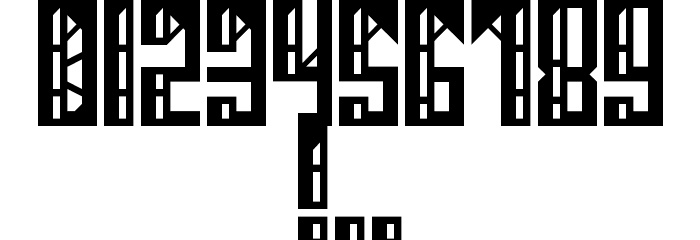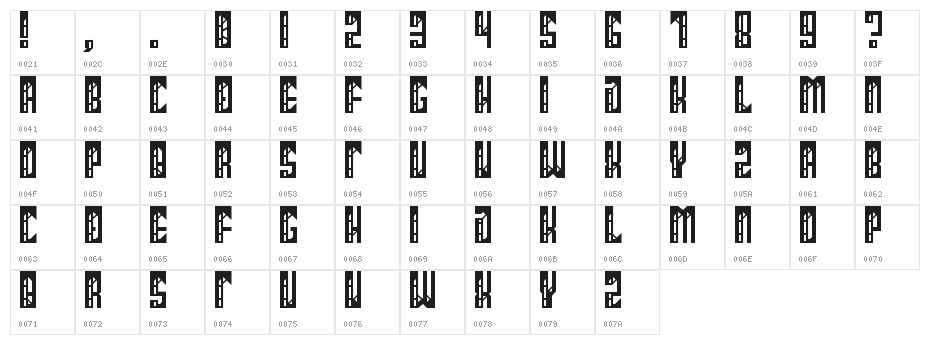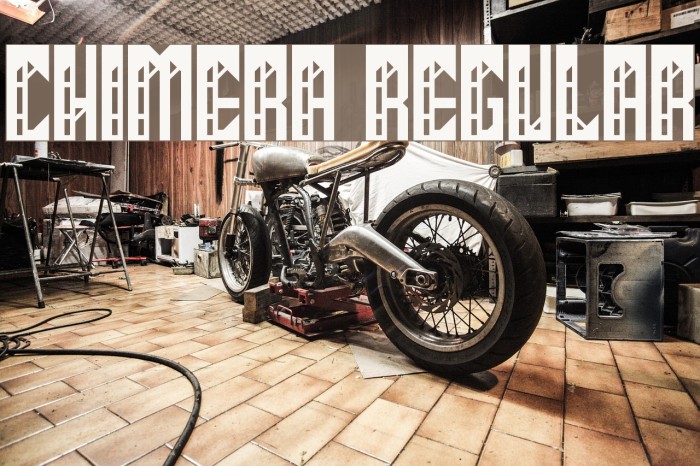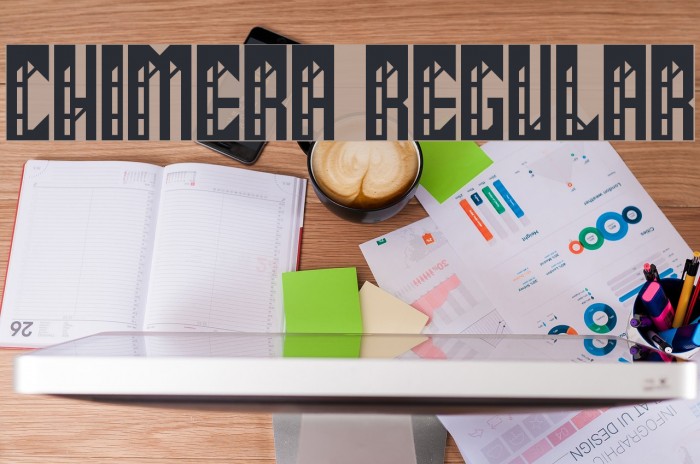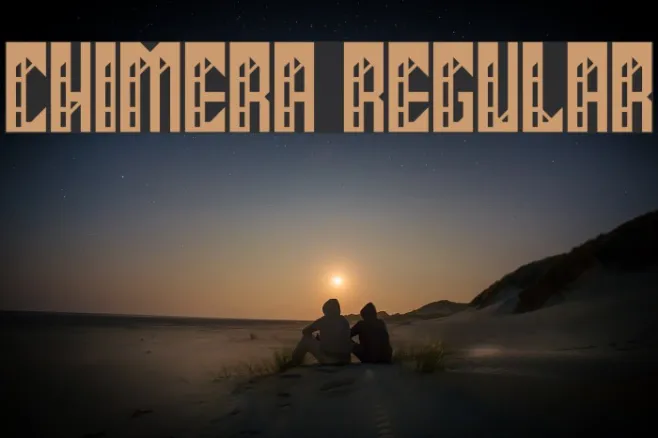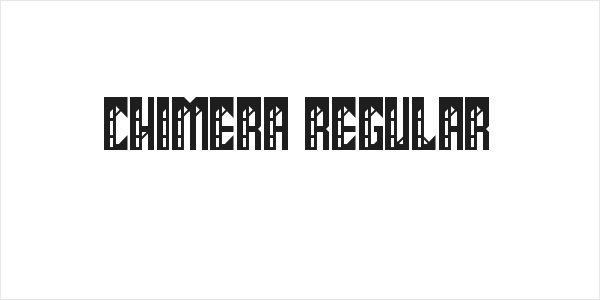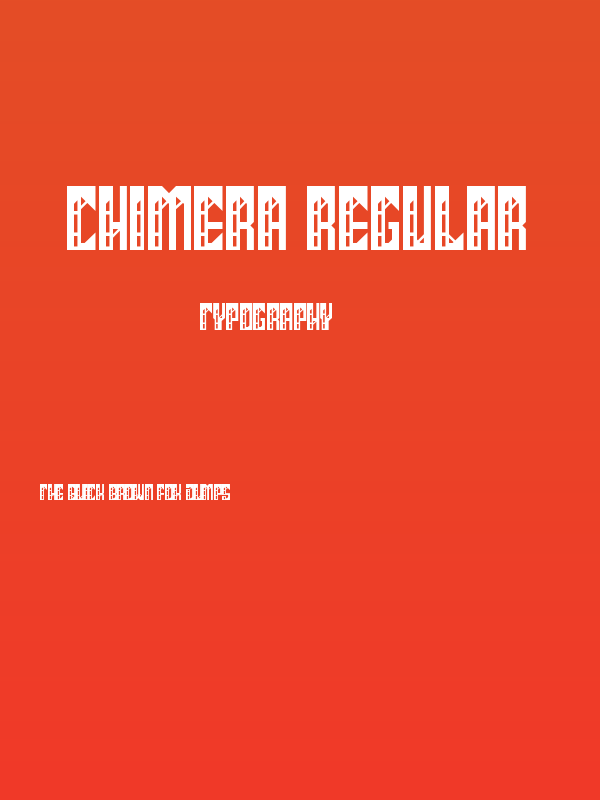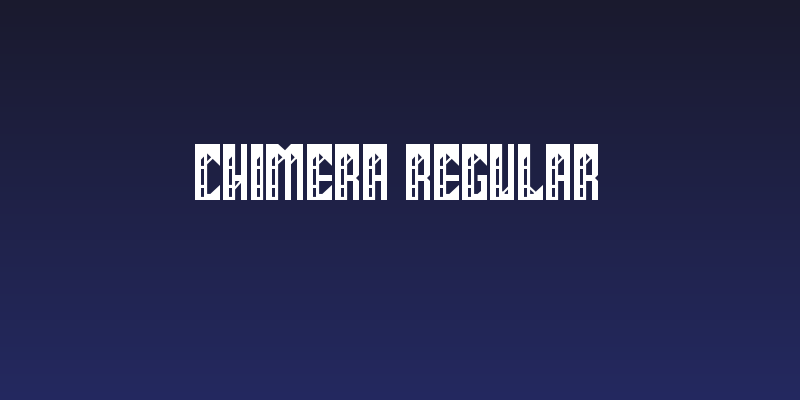
Chimera Regular Font
Chimera Regular Description
This font features a bold and geometric design with a distinct architectural style. Each character is constructed with a combination of solid and hollow spaces, creating a striking visual effect. The angular and blocky shapes give it a futuristic and industrial feel, while the consistent use of negative space adds a layer of complexity and depth. The uppercase and lowercase letters maintain a uniform height, contributing to a cohesive and structured appearance. The numbers and special characters follow the same design principles, ensuring a harmonious overall look.
| Proposed Projects | Ideal for branding, posters, and modern digital interfaces where a strong visual impact is desired. |